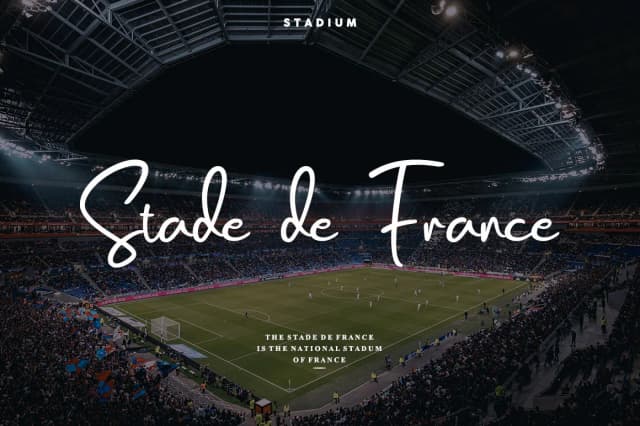
1 / 9About Cashion Font
Cashion by Emtheen Std. is a fluid handwritten script that brings warmth and personality to any creative project. Built with two distinct style variations, this font captures the natural flow of pen-and-ink lettering while maintaining professional polish. The ample proportions create a confident, approachable presence that works equally well in digital and print spaces.
Fashion editorials and lifestyle magazines frequently feature typefaces like Cashion to frame their most elegant layouts. Beyond print, the font excels for beauty and cosmetics branding, where luxury packaging demands both sophistication and humanity. Wedding stationery designers appreciate the balance this script strikes between formal occasion sensibility and contemporary freshness, making it ideal for invitation suites and thank-you cards. Social media content creators also gravitate toward script fonts like this for highlight covers and branded graphics that need personality without looking hand-scrawled.
The dual-style approach gives designers flexibility to create visual hierarchy or switch between regular and alternate letterforms for specific brand applications. Whether you're crafting a luxury brand identity, designing boutique product labels, or curating magazine spreads that demand character, Cashion delivers the handmade authenticity that modern brands increasingly seek. Find Cashion on Creative Fabrica and add this versatile script to your design library.
Cashion Font is a script font that shines as a display or heading face. Pair it with a clean sans-serif or serif font for body text β the contrast creates a clear hierarchy while the two styles stay balanced and easy to read.
Cashion Font
by Emtheen Std.